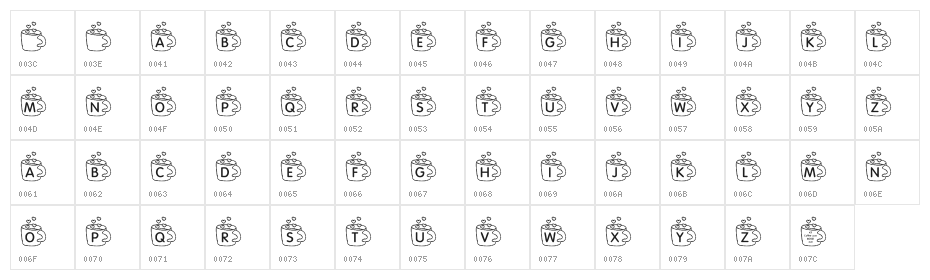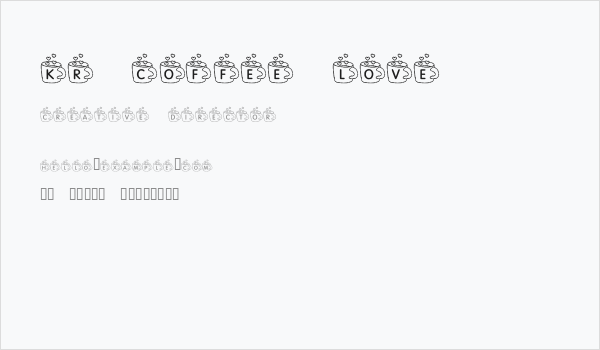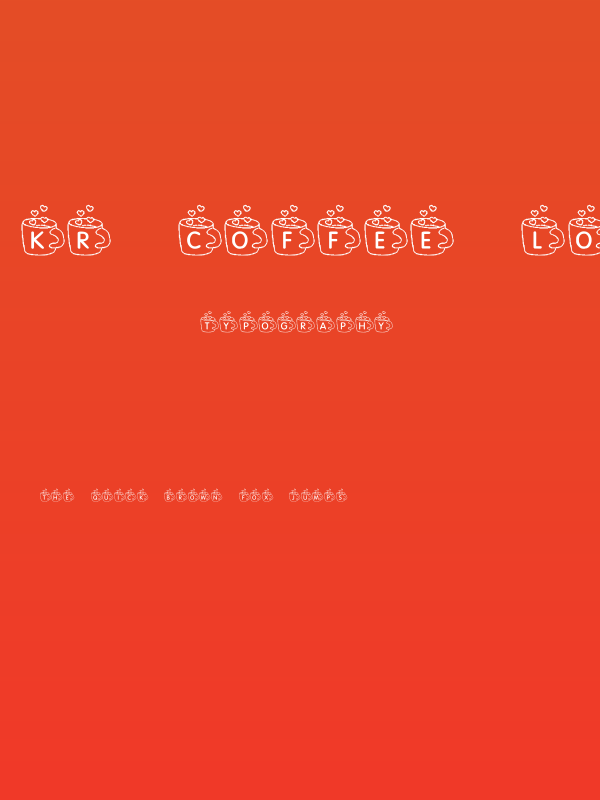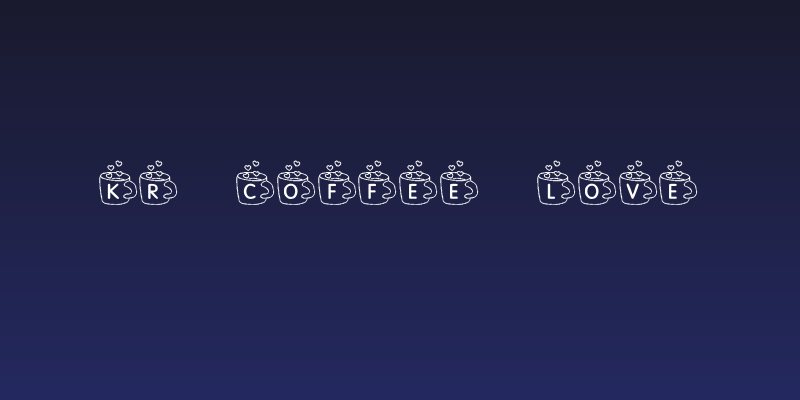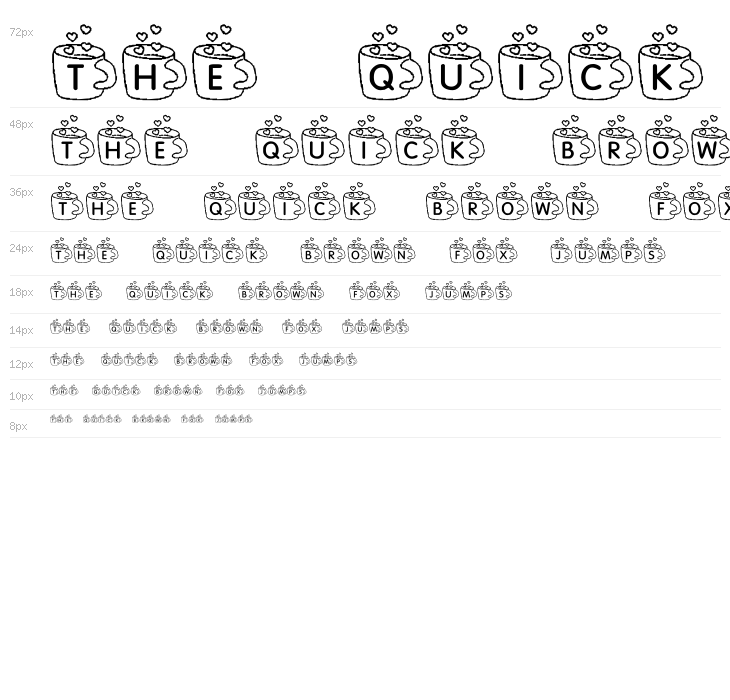
KR Coffee Love Font
| Anwendungsfall | Logos, Headlines, Invitations |
| Vorgeschlagene Projekte | Ideal for coffee shop branding, playful greeting cards, themed party invitations, or any project that seeks to evoke a sense of warmth and coziness. |